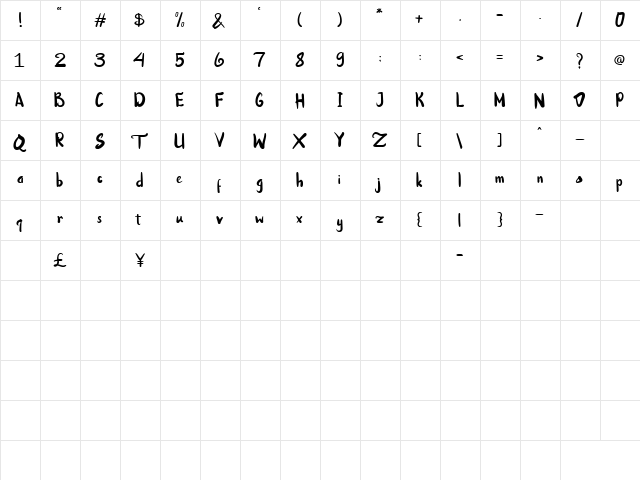
Nattanio Regular
| Designer | Tio Yulianto |
Design Context for Nattanio Typeface
Nattanio is a composed and adaptable typeface that performs quietly and consistently across a wide range of design contexts.